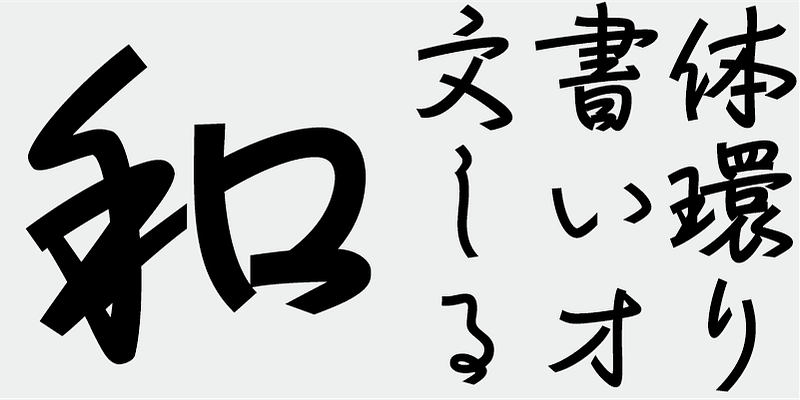
AB Ryusen Natsu Font Free Download is a beautifully artistic Japanese-style typeface that blends traditional calligraphy with a fresh, seasonal flair. “Ryusen” means “flowing line” and “Natsu” means “summer” in Japanese, and this font perfectly captures that essence—graceful, lively, and full of expressive energy. It’s ideal for seasonal event posters, cultural branding, packaging, restaurant menus, and any design that aims to feel both elegant and refreshingly unique.
Featuring flowing brush strokes and a naturally rhythmic style, AB Ryusen Natsu brings an organic and heartfelt touch to your typography. It evokes the sensation of handwritten summer notes or traditional festival signage, making it perfect for both modern and nostalgic themes.